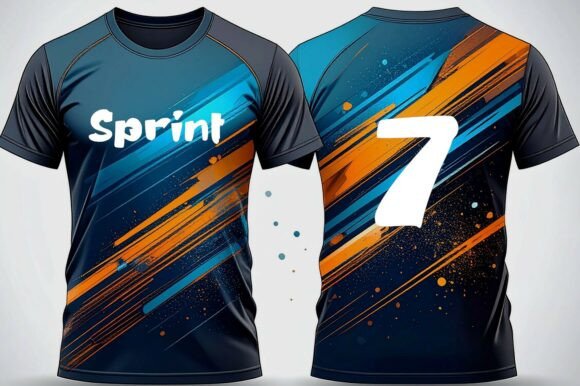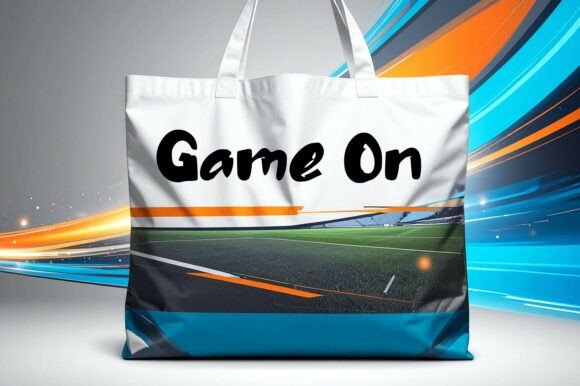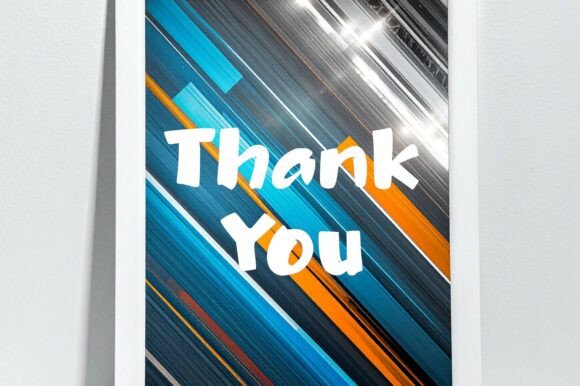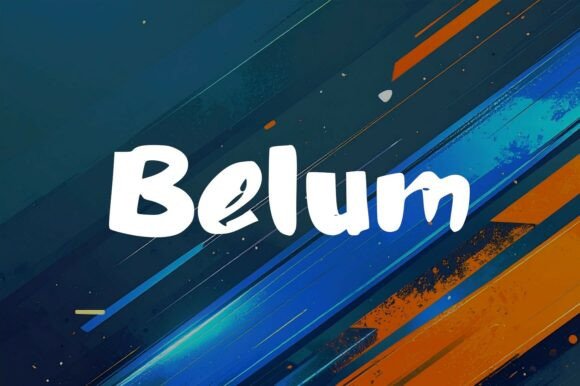
Unleash Your Design Potential with Belum Font: The Ultimate Display Font for Modern Projects
In the world of typography, a font can make or break a design. When it comes to creating visually stunning and high-energy projects, the right font is essential. That’s where Belum Font comes in – a bold, athletic, and dynamically styled display font that’s designed to inject energy and modern flair into your projects. With its strong, confident letterforms and a subtly imperfect, hand-drawn edge, Belum perfectly captures the spirit of speed, sport, and contemporary design.
What Makes Belum Font Stand Out?
Belum distinguishes itself through its robust presence and lively character. While each letter is solid and impactful, a slight irregularity in its outline gives it an authentic, hand-crafted feel, preventing it from appearing too rigid or generic. This blend of strength and playful imperfection makes it incredibly versatile. It projects an image of forward momentum and dynamism, making it highly effective for designs that need to convey action, achievement, and a fresh, modern aesthetic.
The Benefits of Using Belum Font
Belum Font offers a range of benefits for designers and crafters. Here are just a few reasons why it’s a top choice for modern projects:
- Excellent Legibility: Belum’s clear and confident letterforms ensure clear communication even in fast-paced visual contexts. Whether you’re designing a sports logo, a website header, or a promotional poster, Belum’s legibility ensures your message gets across quickly and effectively.
- Versatility: Belum’s unique blend of strength and playful imperfection makes it suitable for a wide range of design applications. From sports and fitness to technology and lifestyle, Belum is the perfect font for projects that require a modern and dynamic look.
- Authentic, Hand-Crafted Feel: Belum’s subtly imperfect outline gives it a human touch, setting it apart from more generic fonts. This hand-crafted feel adds a layer of personality to your designs, making them more relatable and engaging.
- Standard Punctuation Glyphs: Ensure your designs look professional and polished with Belum’s complete set of standard punctuation glyphs.
- Uppercase and Lowercase Letters: Belum includes a full set of uppercase and lowercase letters, making it easy to create stunning headings and body text.
How to Use Belum Font in Your Designs
Belum Font is perfect for a wide range of design applications, including:
- Sports and Fitness Logos: Create bold and dynamic logos for sports teams, fitness centers, and athletic brands.
- Website Headers: Add a modern and energetic touch to your website headers with Belum’s confident and legible letterforms.
- Promotional Posters: Create eye-catching promotional posters for events, products, or services with Belum’s dynamic and attention-grabbing style.